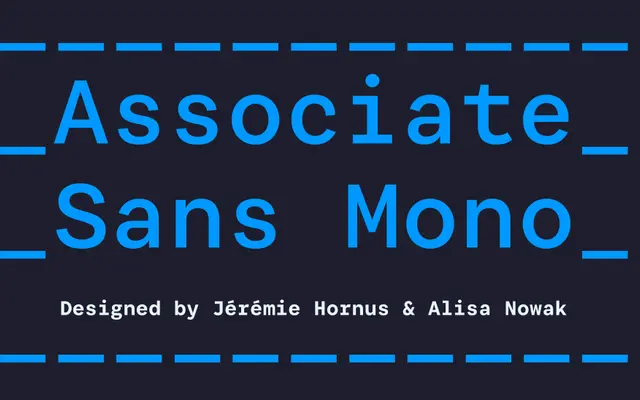
Associate Mono
A five-weight monospaced member of the Associate superfamily, offered with matching italics across all weights.
Associate Mono forms the fixed-pitch branch of the broader Associate family, which also includes sans, slab and stencil variants. Five weights run from Extralight to Bold, each paired with an italic, giving ten styles in total. The consistent weight range and family coherence make it a practical choice for technical documents, coding interfaces or editorial work requiring a monospaced voice.
A monospaced typeface in the Associate superfamily, sitting alongside sans, slab and stencil variants; the fixed-pitch design places it firmly in the mono category.